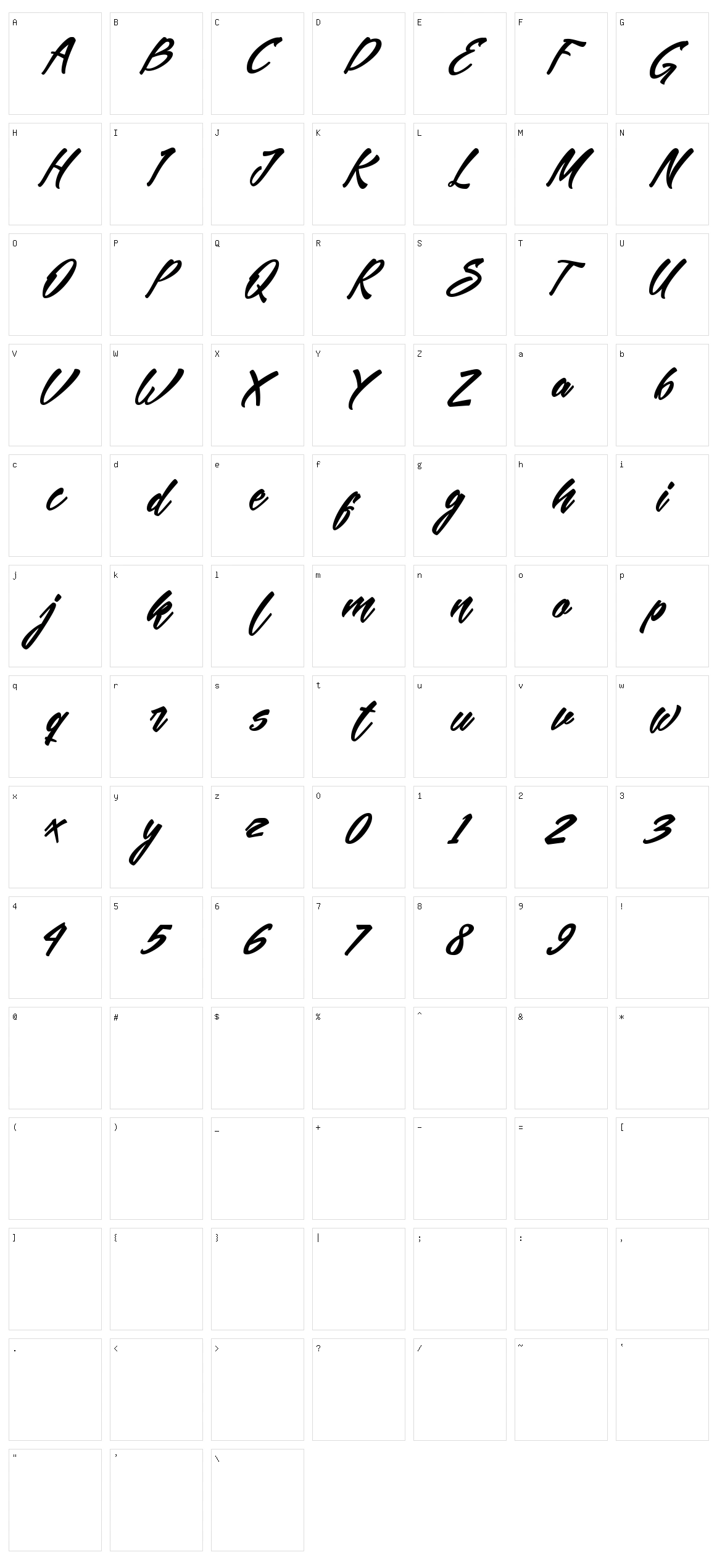
The free font Mekar Script is carefully designed by ShowUp! Typefoundry, showcasing a thoughtful balance of creativity and usability and falls under the Script font style. When you download the ZIP file, it contains only 50.9 KB of font files, making it lightweight and quick to download. Please review the license details below to understand permitted usage and distribution rights. If license information is not available, we recommend using this font for personal projects only or contacting the author directly for commercial usage permissions.
Mekar Script - a modern typeface you can create logo type and more!